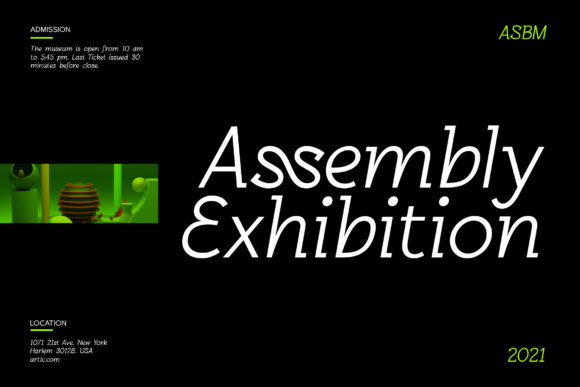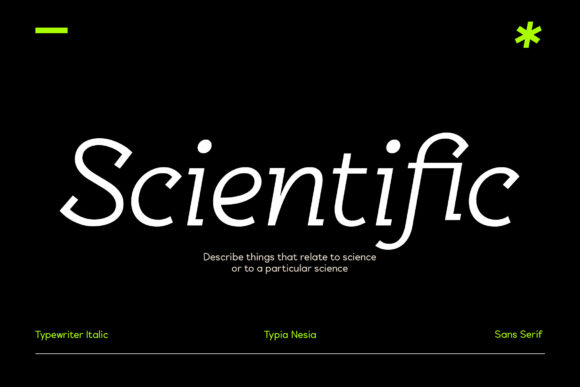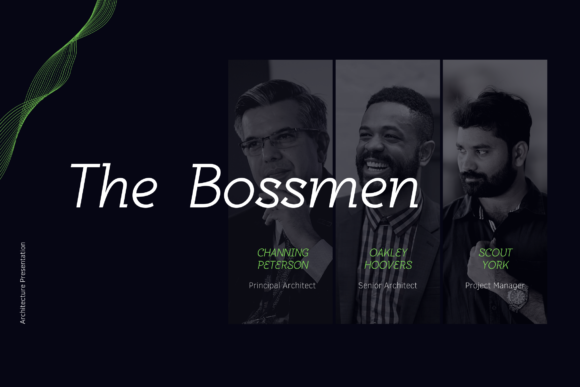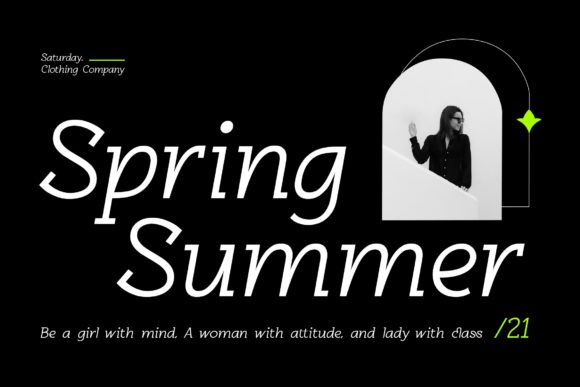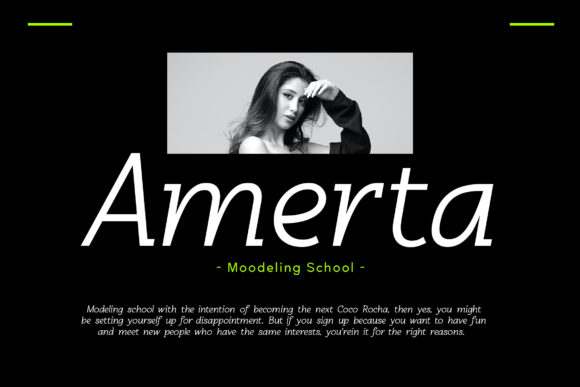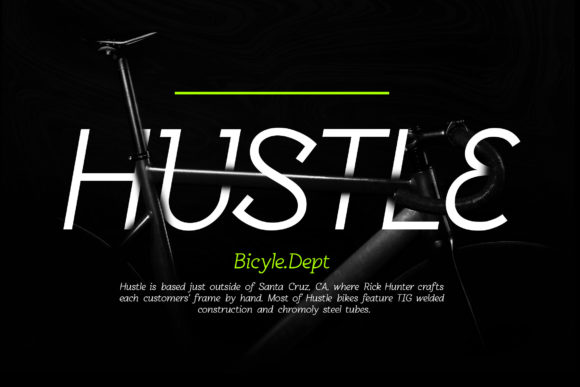
The Enickma Font: A Modern Twist for Your Designs
Have you ever been in the middle of a design project, and suddenly, you’re stuck on finding the perfect font? I recall a recent experience where I was working on a business card design for a client, and I just couldn’t find a font that screamed professionalism and modernity. That’s when I stumbled upon the Enickma font, and it was love at first sight! 💕
What is Enickma Font?
Enickma is a modern and business-like display font, ideal for writing web designs, business cards, or pretty much anything else that requires a unique touch. Its clean lines and elegant curves make it perfect for designers, crafters, and creative hobbyists looking to elevate their designs.
My Honest Review
Here’s what I love about Enickma:
- ✨ Unique and Modern Design: Enickma’s sleek lines and elegant curves make it stand out from other fonts.
- ✅ Highly Versatile: It can be used for a wide range of design projects, from business cards to web designs.
- 💼 Professional and Elegant: Enickma exudes a sense of professionalism and sophistication, making it perfect for corporate designs.
However, I did notice a few quirks:
- 🤔 Limited Use for Body Text: Enickma is best used for headlines and titles, as it may be too bold for body text.
- ⚠️ Some Glyphs May Not Display Properly: As with any font, some glyphs or special characters may not display properly on all devices or platforms.
The Story Behind Enickma
Enickma was designed with the modern designer in mind. Its creator aimed to craft a font that was both elegant and versatile, suitable for a wide range of design projects. The name “Enickma” is derived from a combination of “enigmatic” and ” dynamic,” reflecting the font’s unique and modern personality.
| Author | Typia Nesia |
| What type of designs is Enickma best suited for? | Enickma is ideal for designs that require a modern and professional touch, such as business cards, web designs, and corporate branding. |
| Can I use Enickma for body text? | While Enickma can be used for body text, it’s best suited for headlines and titles due to its bold and elegant design. |